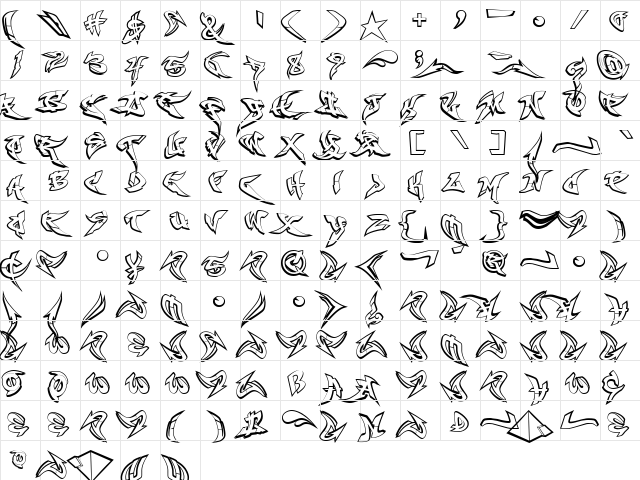
RaseOne Outline
Design Context for RaseOne Typeface
RaseOne brings ornamental detail and strong personality to headlines and identities, where visual impact matters more than quiet functionality.
Font Pairing: Pair with a clean neutral sans-serif for body copy to let RaseOne's character lead without overwhelming the composition.
Pro Tip: Treat RaseOne as the centrepiece of your typographic hierarchy. One strong heading set in a decorative face can carry an entire layout.